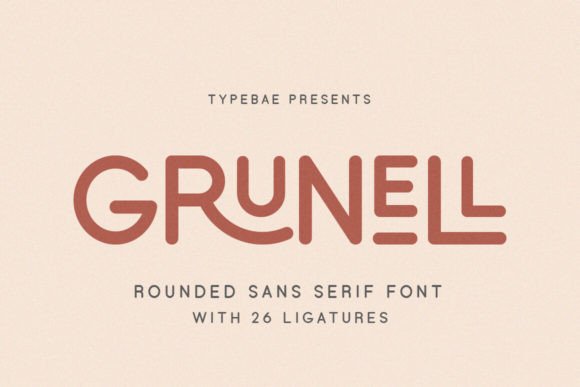
Grunell Font: A Modern and Friendly Aesthetic for Creative Typography
In the world of typography, fonts play a crucial role in conveying messages, expressing emotions, and creating visual identities. Among the numerous fonts available, Grunell stands out as a unique and versatile rounded sans-serif font that embodies a modern and friendly aesthetic. Designed to cater to the needs of creative professionals, Grunell boasts a collection of 26 unique ligatures, making it an excellent choice for typographic compositions that demand visual appeal and clarity.
Grunell Font: A Modern and Friendly Aesthetic
Grunell is a carefully crafted font that combines the warmth of rounded shapes with the clarity of sans-serif typography. Its modern and friendly aesthetic makes it suitable for a wide range of applications, from digital media to print materials. The font’s clean and legible letterforms ensure that it works well in various contexts, including headings, body text, and captions.
26 Unique Ligatures for Creative Typography
One of the standout features of Grunell is its collection of 26 unique ligatures. Ligatures are special characters that combine two or more letters to create a single glyph, adding a touch of elegance and sophistication to typographic compositions. With Grunell’s ligatures, designers can create visually appealing and creative text arrangements that enhance the overall aesthetic of their work.
The ligatures in Grunell are designed to work seamlessly with the font’s letterforms, ensuring a cohesive and harmonious look. Whether used for titles, headings, or body text, Grunell’s ligatures add a touch of personality and flair to any typographic composition.
Clean and Legible Letterforms for Versatile Use
Grunell’s clean and legible letterforms make it an excellent choice for both digital and print applications. In digital media, the font’s clarity and precision ensure that it remains readable on various devices and screen sizes. For print materials, Grunell’s letterforms are designed to work well on a range of paper stocks and printing techniques, producing crisp and professional results.
Whether used for:
- Digital interfaces, such as websites, mobile apps, and social media graphics
- Print materials, like brochures, posters, and business cards
- Headings, titles, and captions in magazines, newspapers, and books
Grunell’s versatility and legibility make it an excellent choice for designers seeking a reliable and visually appealing font.
Tips for Getting the Most Out of Grunell
To maximize the potential of Grunell, consider the following typographic tips and tricks:
- Experiment with ligatures: Grunell’s 26 unique ligatures offer a wealth of creative possibilities. Try combining different ligatures to create visually appealing text arrangements.
- Play with font sizes: Grunell’s clean and legible letterforms work well across a range of font sizes. Experiment with different sizes to create visual hierarchy and emphasis.
- Mix and match with other fonts: Grunell’s friendly aesthetic makes it an excellent pairing font for a wide range of typefaces. Try combining Grunell with other fonts to create interesting and dynamic typographic compositions.
Pairing Grunell with Other Fonts
Grunell’s friendly and approachable aesthetic makes it an excellent choice for pairing with other fonts. Here are some suggested font pairings to try:
- Montserrat: A sleek and modern sans-serif font that pairs well with Grunell’s rounded shapes.
- Lato: A clean and elegant sans-serif font that complements Grunell’s legibility and clarity.
- Merriweather: A classic serif font that contrasts nicely with Grunell’s modern and friendly aesthetic.
In conclusion, Grunell is a versatile and visually appealing rounded sans-serif font that embodies a modern and friendly aesthetic. With its collection of 26 unique ligatures, clean and legible letterforms, and adaptability to various applications, Grunell is an excellent choice for designers seeking a reliable and creative font. Whether used for digital or print materials, Grunell is sure to enhance the typographic composition and add a touch of personality to any design project.